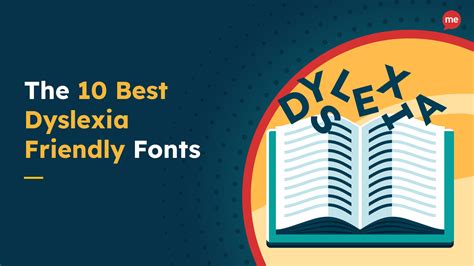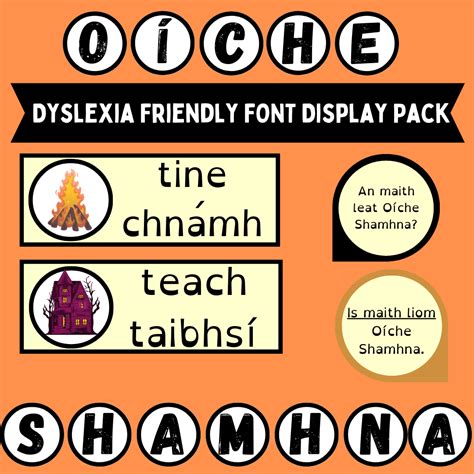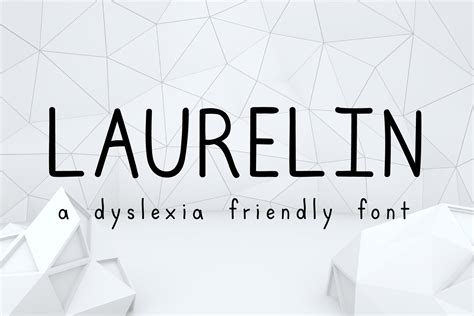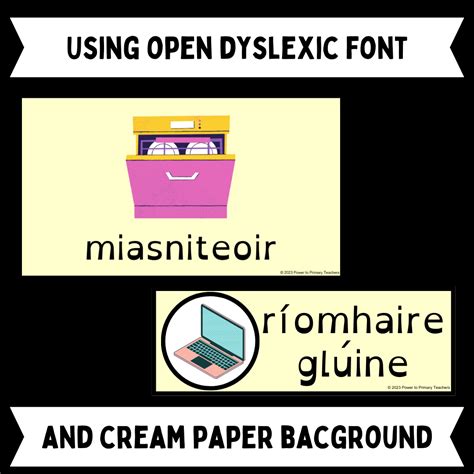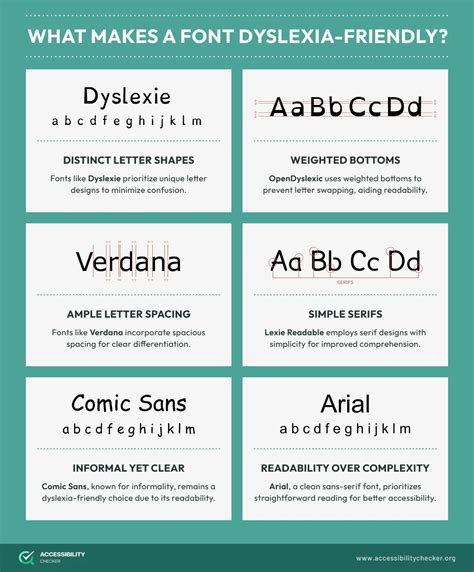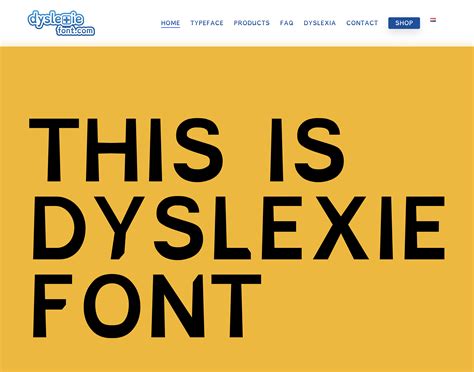
In today's digital age, accessibility is more important than ever. One often-overlooked aspect of accessibility is the use of fonts dyslexia friendly for individuals with dyslexia. Dyslexia is a learning disorder that affects reading and language-based processing skills. For those with dyslexia, reading can be a challenging and frustrating experience. However, the right choice of fonts can significantly improve readability and comprehension. This post will explore the importance of fonts dyslexia friendly, the characteristics of such fonts, and how to implement them in various contexts.
Understanding Dyslexia and Reading Challenges
Dyslexia is a neurological condition that affects the way the brain processes written language. Individuals with dyslexia may have difficulty with:
- Reading fluently
- Spelling
- Writing
- Reading comprehension
These challenges can make it difficult for individuals with dyslexia to keep up in school, at work, and in daily life. One way to mitigate these challenges is by using fonts dyslexia friendly that are designed to be easier to read.
Characteristics of Dyslexia-Friendly Fonts
Fonts dyslexia friendly typically have several key characteristics that make them easier to read for individuals with dyslexia. These characteristics include:
- Open and Clear Letterforms: Letters should be distinct and easy to differentiate from one another. For example, the letters ‘b’ and ’d’ should be easily distinguishable.
- Uniform Weight: The thickness of the strokes should be consistent throughout the font. This helps to reduce visual clutter and makes the text easier to read.
- Adequate Spacing: There should be sufficient space between letters, words, and lines. This helps to prevent letters from blending together and makes the text easier to follow.
- Lowercase Letters: Using lowercase letters can be easier for individuals with dyslexia to read, as they are less likely to be confused with uppercase letters.
- Avoiding Serifs: Serifs are the small lines or strokes regularly attached to the end of a larger stroke in a letter or symbol within a particular font. Serif fonts can be more difficult for individuals with dyslexia to read, as the serifs can create visual clutter.
Popular Dyslexia-Friendly Fonts
There are several fonts dyslexia friendly that are widely recognized for their readability. Some of the most popular options include:
- OpenDyslexic: This font was specifically designed to help individuals with dyslexia. It features heavy bottoms to help ground the letters and unique shapes to make letters more distinguishable.
- Dyslexie: This font was created by a Dutch designer with dyslexia. It features heavy bottoms, unique shapes, and increased spacing to make reading easier.
- Lexend: This font was designed by a team of researchers and designers to improve reading speed and comprehension for individuals with dyslexia. It features open letterforms and increased spacing.
- Sylexiad: This font was designed to be easy to read for individuals with dyslexia. It features open letterforms, uniform weight, and increased spacing.
Implementing Dyslexia-Friendly Fonts
Implementing fonts dyslexia friendly can be done in various contexts, from websites and documents to educational materials and signage. Here are some steps to help you get started:
Websites and Digital Content
To implement fonts dyslexia friendly on a website, you can use CSS to specify the font. Here is an example of how to do this:
Educational Materials and Signage
For educational materials and signage, you can use fonts dyslexia friendly to make the content more accessible. Here are some tips:
- Use a large font size to make the text easier to read.
- Use a high contrast color scheme to make the text stand out.